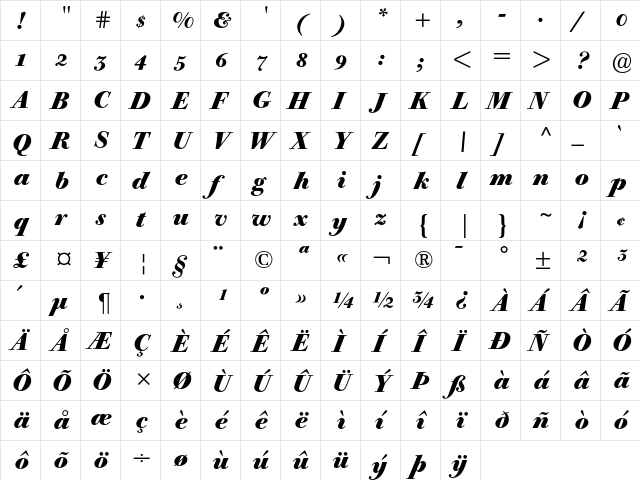
Bodoni Old Face BE Bold Italic Oldstyle Figures Font Preview
Design Context for Bodoni Old Face BE Typeface
Bodoni Old Face BE carries the refined structure of traditional serif typography, with bracketed terminals and considered proportions that communicate credibility and craft. The dynamic lean of this cut emphasises speed and emphasis in any layout. Its bold stroke weight gives it real presence on the page.
Pro Tip: Set Bodoni Old Face BE with slightly loose tracking in headlines to let each letterform's detail read clearly at display sizes.